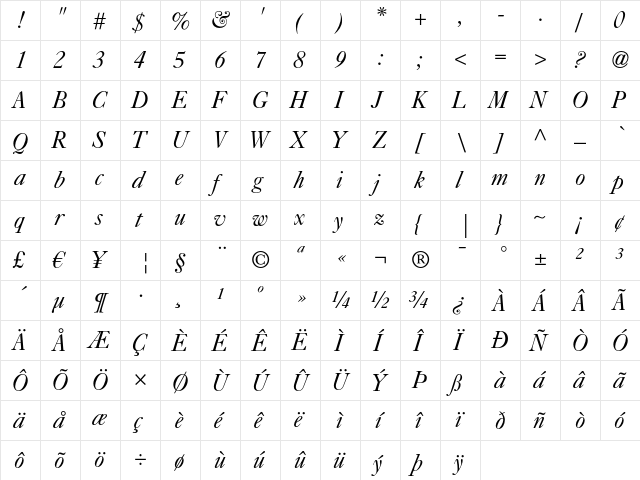
Caslon 540 LT Italic Font Preview
Caslon 540 LT Italic
Caslon 540 LT Italic Font Details
Design Context for Caslon 540 LT Typeface
Caslon 540 LT offers clean, dependable letterforms without strong stylistic allegiance, making it a practical choice for designers who need flexibility. Its italic angle brings a sense of urgency and motion to the letterforms. The delicate stroke weight brings airiness and refinement to layouts.
Pro Tip: Use Caslon 540 LT for emphasis, pull quotes, and subheadings where its slanted energy can add rhythm to the layout.